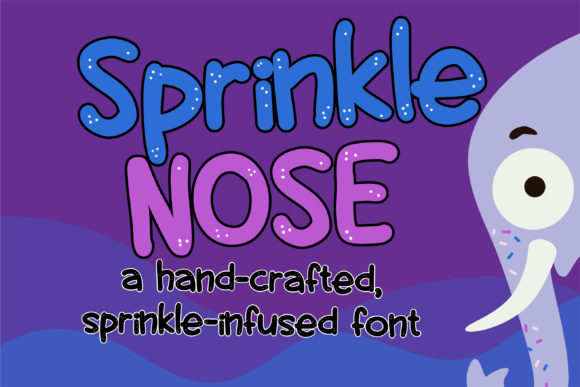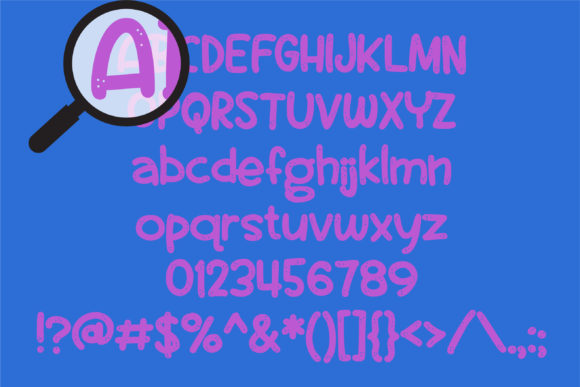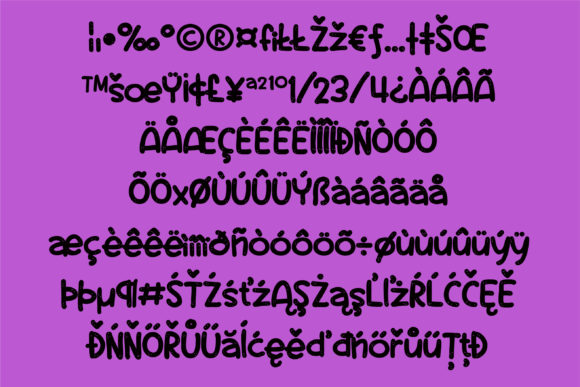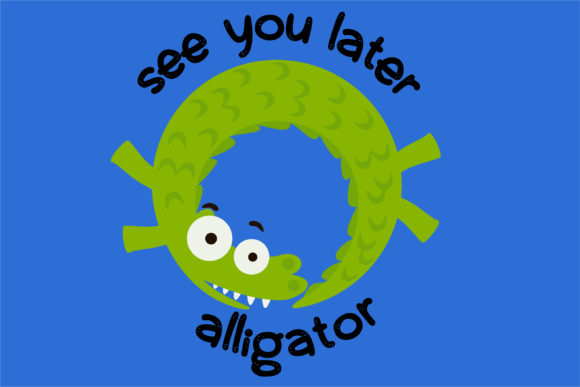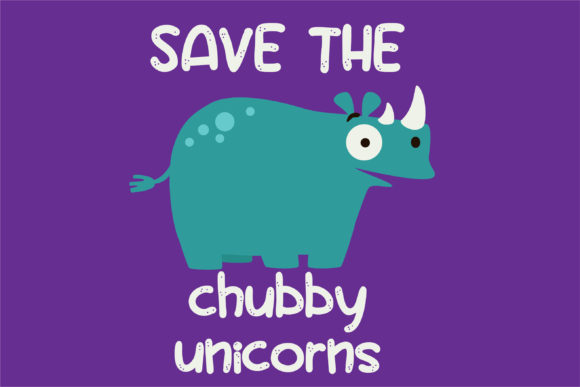
HomeScript FontsSprinkle Nose Font Script Fonts Sprinkle Nose Font FacebookXPinterestWhatsApp Sprinkle Nose Font Poster 2 Sprinkle Nose Font Poster 3 Sprinkle Nose Font Poster 4 Sprinkle Nose Font Poster 5 About Sprinkle Nose Font This whimsical hand-crafted font sports sprinkles throughout. Get inspired by its joyful look! DOWNLOAD NOW People also explored Stickers Font Winter Melody Font Coffe Bean Font Maroon Styled V-Neck T-Shirt Mockup Photo Sister Sweet Espinoza Font Ryder Carley – Script Font Manoeffa Font Amitany Font 411 0 TagsSprinkle Nose Font Previous articleLemon Drop FontNext articleDouble Scoop Font LEAVE A REPLY Cancel reply Comment: Please enter your comment! Name:* Please enter your name here Email:* You have entered an incorrect email address! Please enter your email address here Website: Save my name, email, and website in this browser for the next time I comment. Personal Use Free Hatchill Personal Use Free Read more about this font Knucklehead Personal Use Free Read more about this font Loving Personal Use Free Read more about this font Uchiyama Personal Use Free Read more about this font BLOG Best Fonts for T-Shirt Design – Top 2025 Picks In 2025, t-shirt design has become more than just fashion—it's a form of self-expression. Whether you're... Free Fonts Risk: Why Free Fonts Can Be Dangerous for Designers Using Fonts in Digital Marketing: Tips to Strengthen Your Brand Identity To increase your work productivity, choose the most readable fonts.